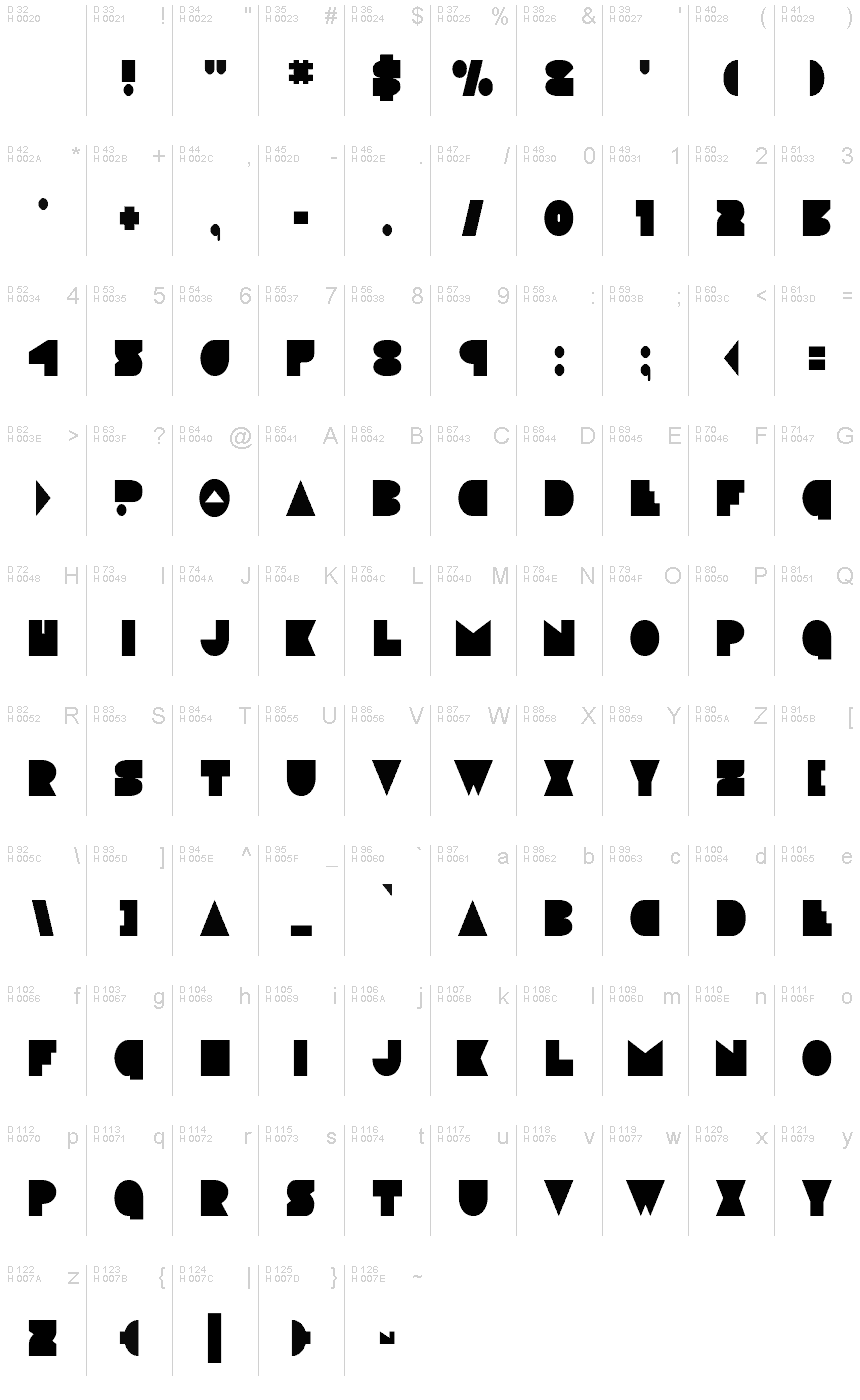
Disco Deck Condensed
Disco Deck Condensed font by Iconian Fonts is a free groovy display typeface that turns any headline into a neon-lit dance floor. The ultra-condensed, blocky shapes pack thick black strokes into a narrow footprint, so you can shout a message without eating up the entire layout. Its rounded corners and cut-out shapes feel like chunky vinyl letters on a glowing club marquee-bold, fun, and instantly retro.
Using Disco Deck Condensed, titles snap to attention on party flyers, nightclub posters, DJ logos, album covers, social media graphics, and event tickets. This free font shines when you set it large and tight, letting the solid letter columns form a strong visual stripe. For details and body copy, pair it with a simple geometric sans in a lighter weight to keep the groove readable and the spotlight firmly on your headline.